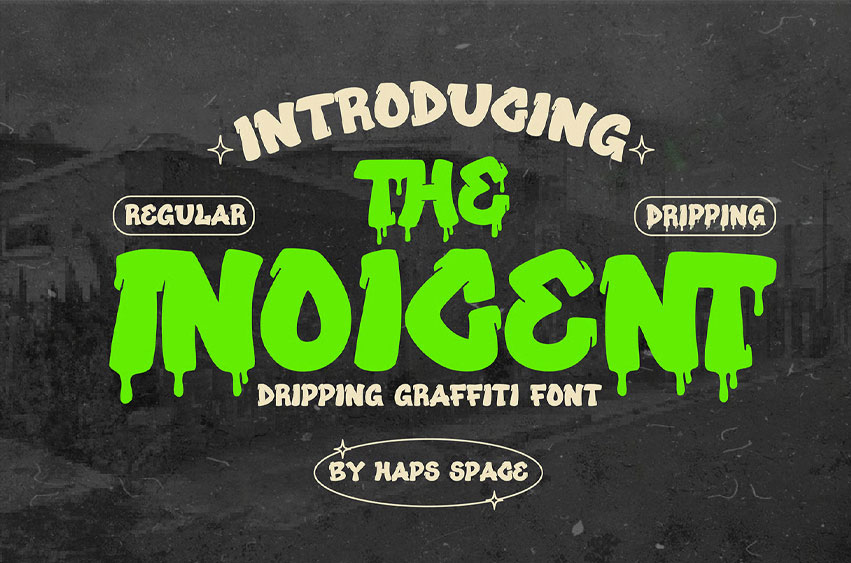
The Inoicent Font is a bold display font with a rebellious graffiti style and dripping details that scream attitude. Available in 2 styles: Regular & Dripping, this font brings underground vibes and street art energy to your design projects.
Perfect for horror posters, punk zines, streetwear branding, music visuals, and anything that needs a raw, gritty edge.
Best For:
- Graffiti Artwork
- Urban Posters & Flyers
- Skateboard & Streetwear Graphics
- Halloween Projects
- YouTube Thumbnails
- Underground Branding